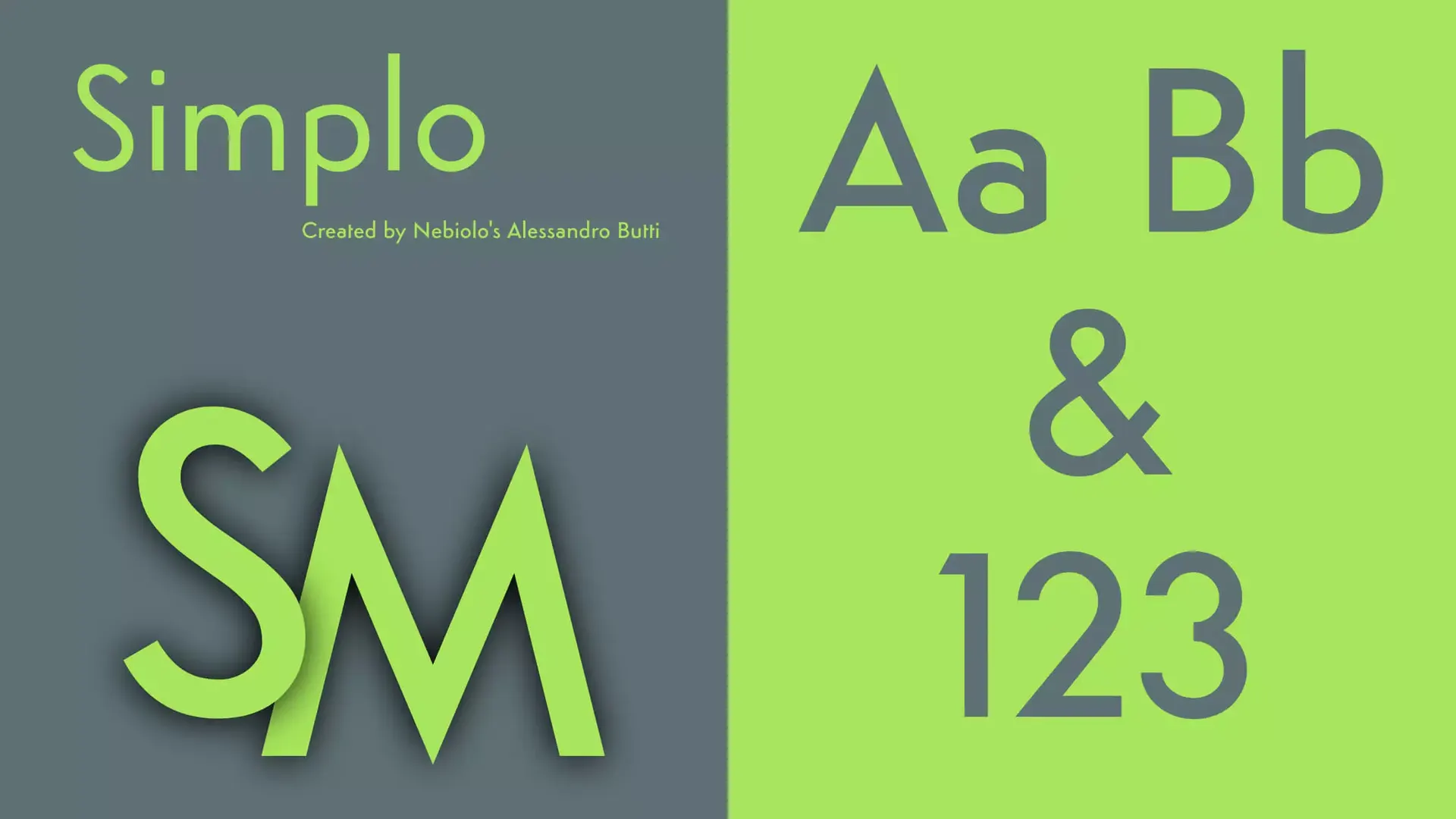
About Simplo Font
Simplo is a geometric sans serif typeface that is built-in sixteen styles. It’s a tribute to Semplicita’s typeface of the 1930s created by Nebiolo’s Alessandro Butti. Simplo is compatible with more than 55 different languages. The most prominent features of this typeface are two letters t as well as the letter f. The t is a culmination of the simplicity of a vertical line with a basic right-side crossbar. The f also features one right-side crossbar, but is actually taller than the s, as it can be seen in both the highest and lowest vertical positions that the font has. Its top, which is distinctively shaped is narrower in comparison to its lowest. The letters a, b the letters d, g, Q, and U are not a spurious design and bear an affinity to Hans Reichel’s typeface from the 1990s Dax. But the letters are more rounded as well as more geometric in comparison to Dax’s counterparts because of Dax’s larger height and narrower style. Scroll down for Simplo font download button.
Simplo is perfect for displays of all sizes. It’s also extremely easy to read in text and is perfect for logo design as well as corporate. Simplo comes with 16 styles, an extensive support for languages as well as eight types of figures, and sophisticated OpenType features — meaning it’s designed for sophisticated typographic designs. All fonts have the same height the lighter fonts look higher because of an optical illusion.
Usage of Simplo Font
Simplo font is a popular and well-known font. To give users a diverse selection of options, the designer developed the Simplo font. The font is utilized in many other areas the designer may not have thought of.
Simplo contains 17 styles so this font is usable for both headings and small/body text. If you use this font as body text, you can use Hanesy font as a heading with it. You can get an idea about this font combination from the image above.
In addition, if you want to use this font in the heading, you can use any sans serif or serif font with it. Fonts like Baskerville, Avenir, Sabon, Garamond, Palatino, Hoefler Text, Open Sans etc. will work well with Simplo font.
IS Simplo A GOOD FONT?
Simplo font is a popular and well-known font. Simplo is a beautiful graphic sans serif typeface that is perfect for the design.